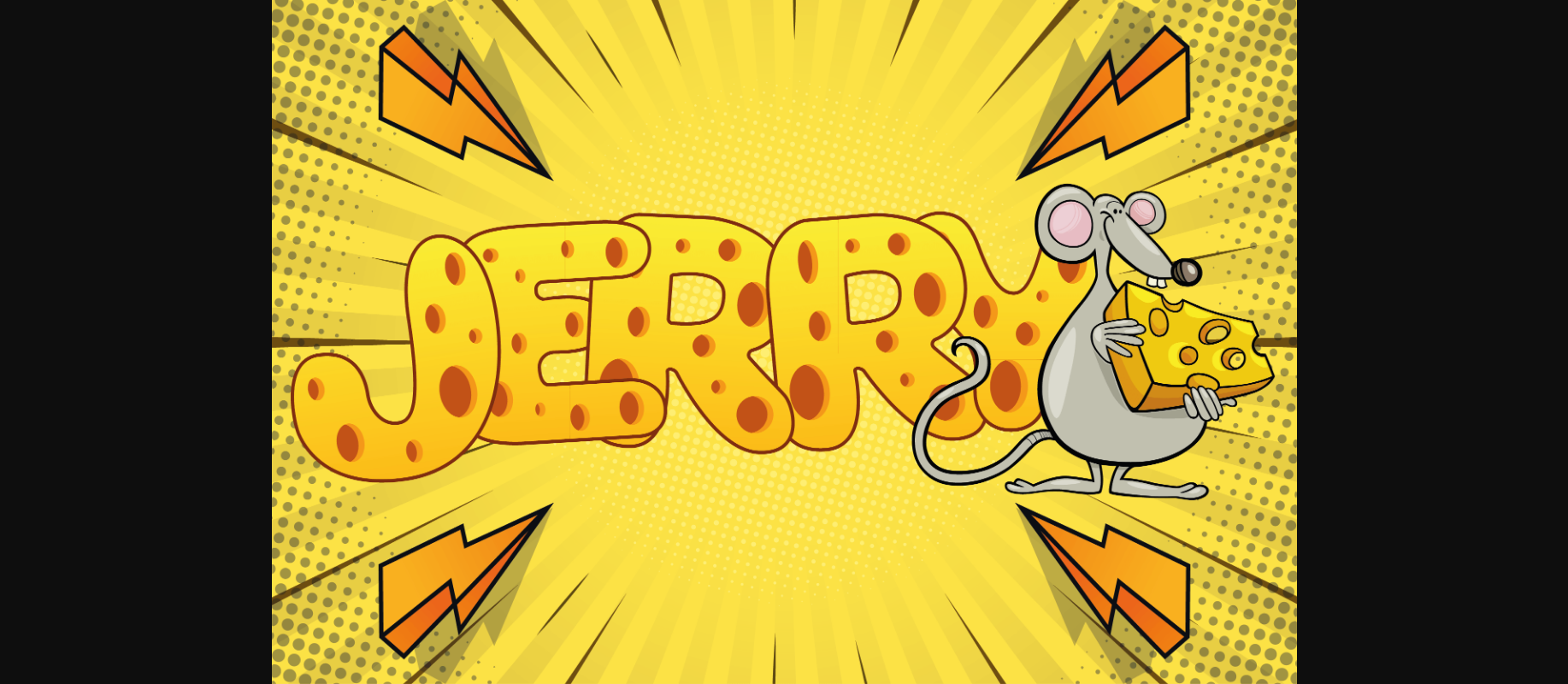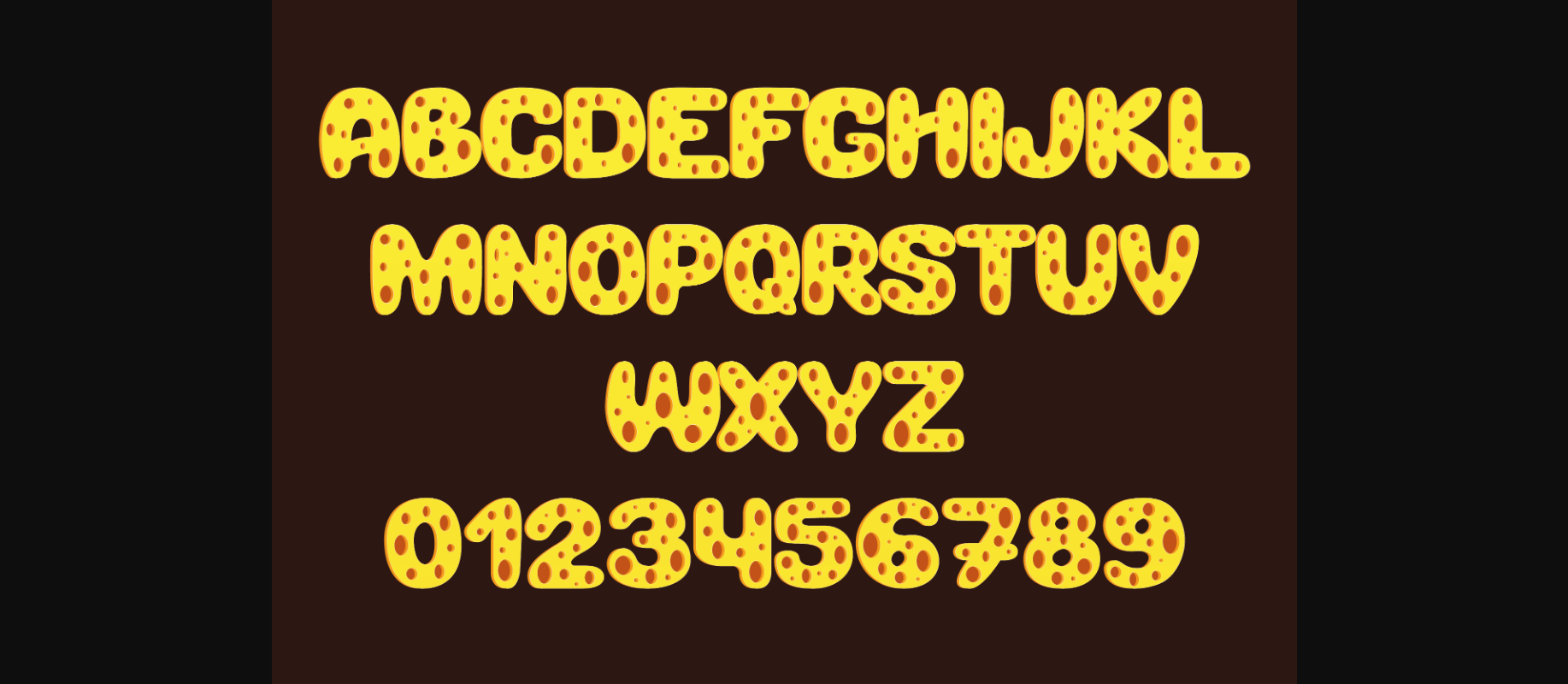
Jerry Font
About Jerry Font
Jerry is an adorable cheese-themed decorative font. With its friendly and authentic characters, this typeface will add extra cuteness to any design project!